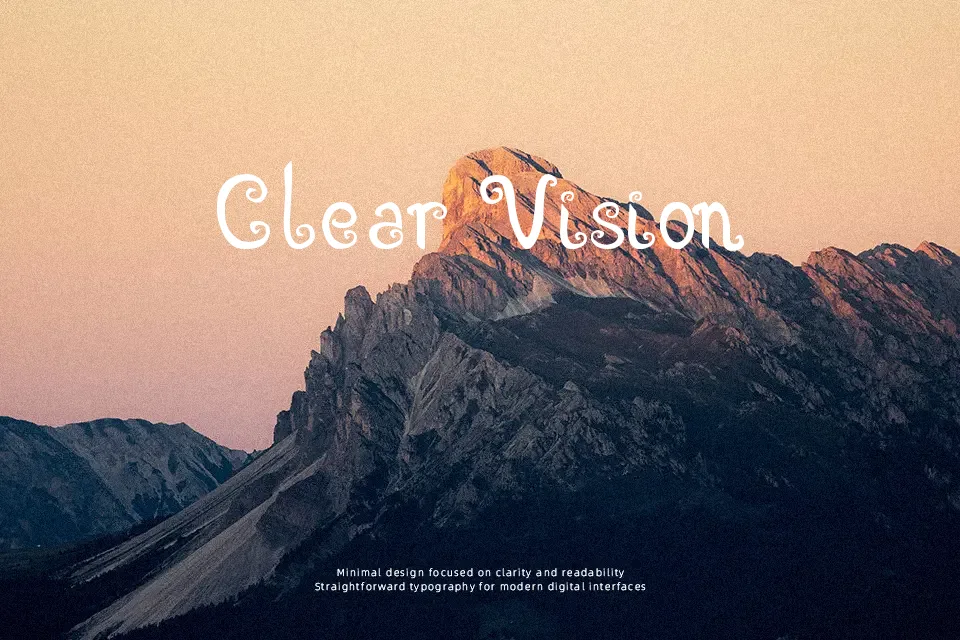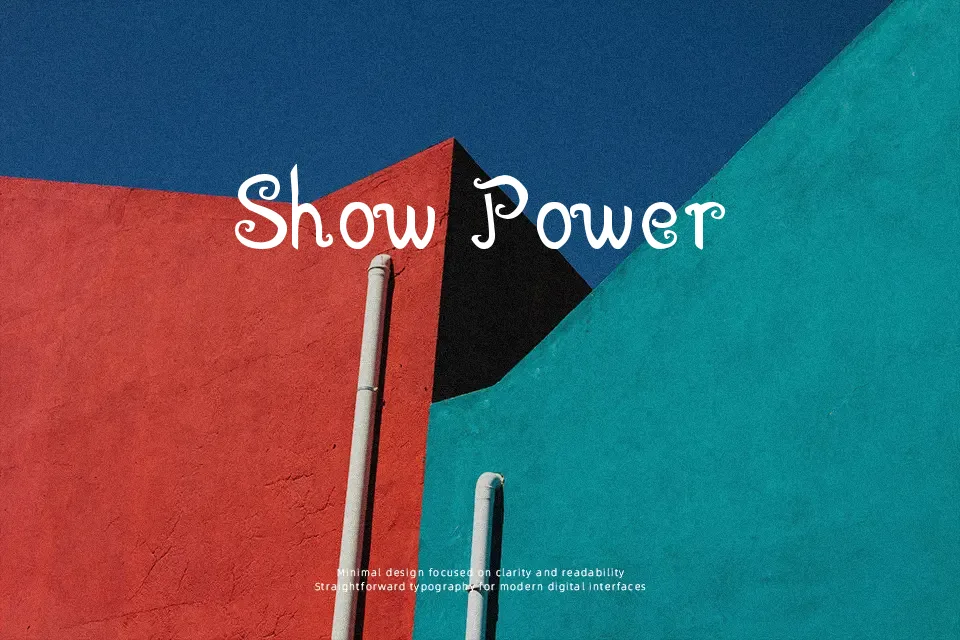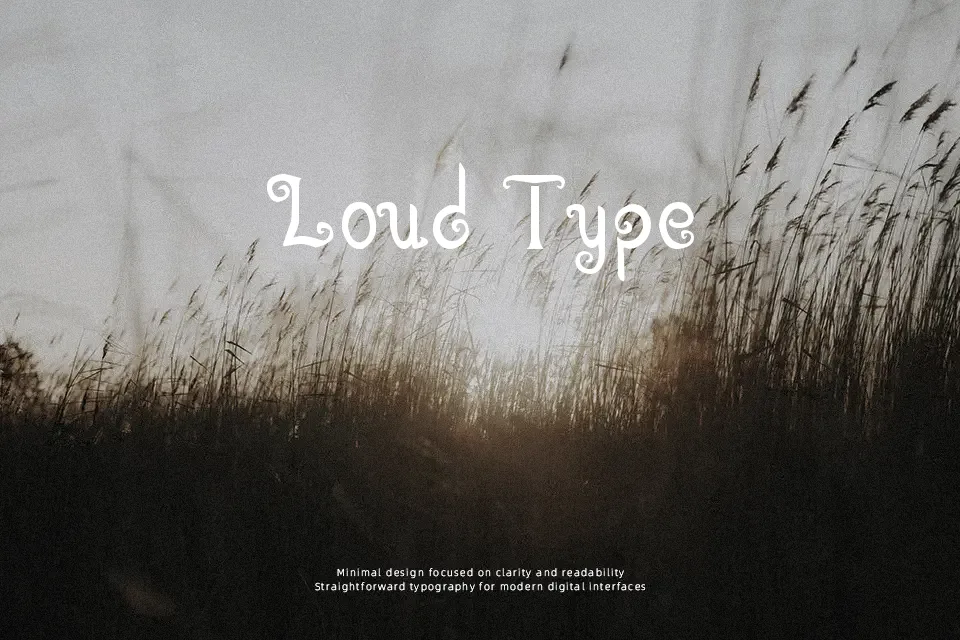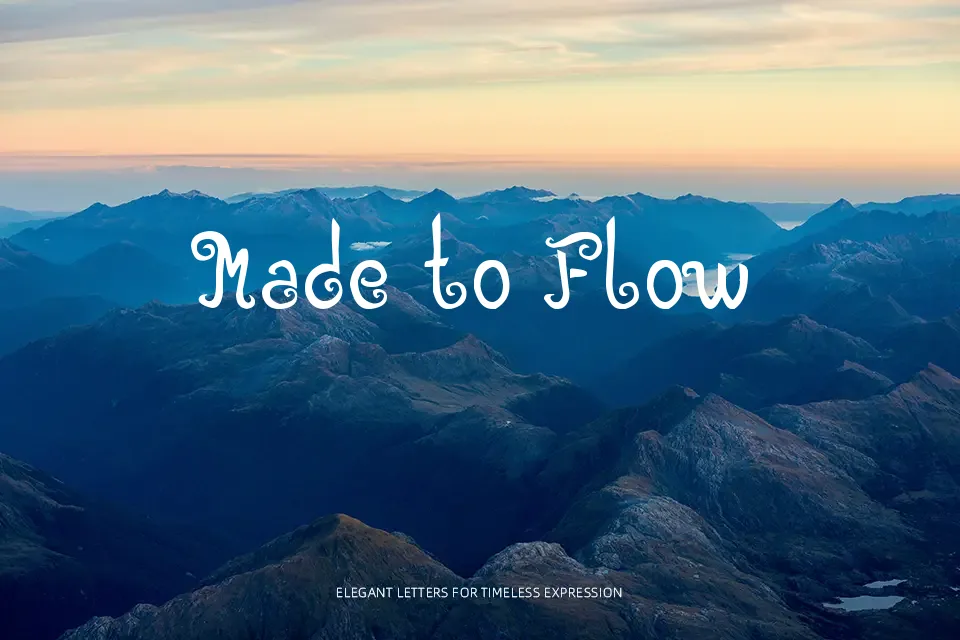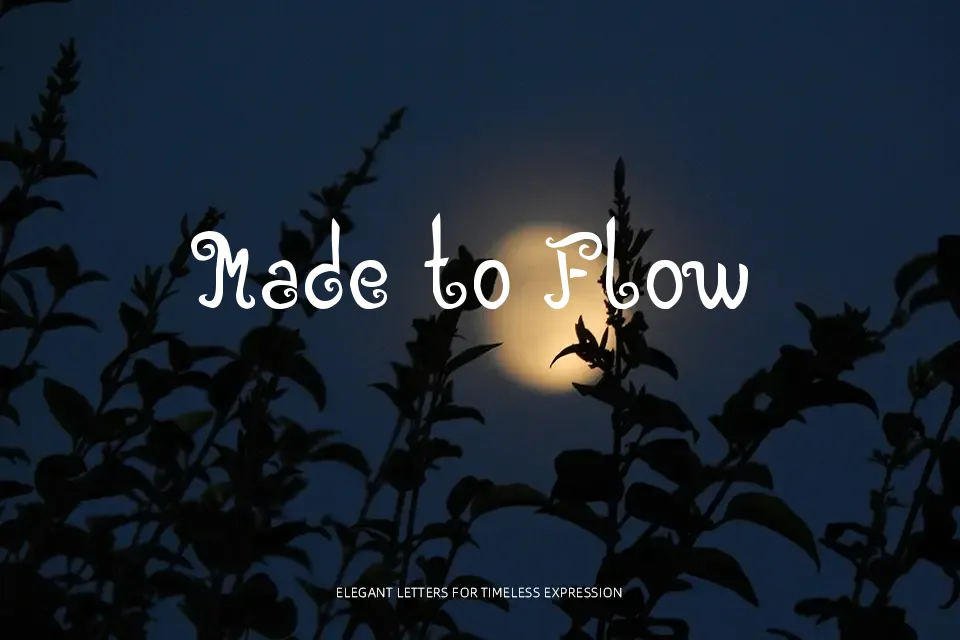
Angelova Font
Designed by Eva Angelova
This curly script display font leans on looping strokes, generous curves, and lively swashes that give each letter a hand-drawn, romantic flair. The forms feel informal and decorative rather than strict calligraphy, so it works when you want something playful on invitations, Valentine cards, boutique logos, or headline-style quotes. Because of its flourishes and uneven rhythm, Angelova can look messy in small sizes or dense paragraphs, and it is not the best option for professional or highly corporate material. It shines when used sparingly as a decorative accent, especially paired with a cleaner sans serif that handles the main text.
wedding and party invitation headers
romantic quote graphics on social media
boutique or handmade product branding marks
long paragraph text or body copy
formal corporate reports or presentations
interfaces or small-size UI labels
technical documents requiring high legibility
Perfect for branding, invitation, and logo, with a creative and decorative style.